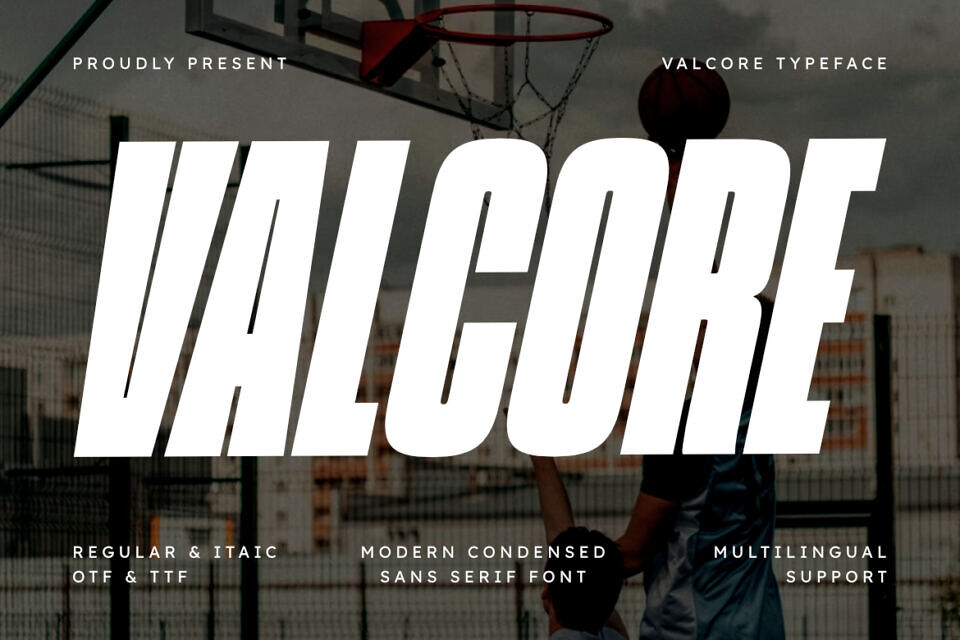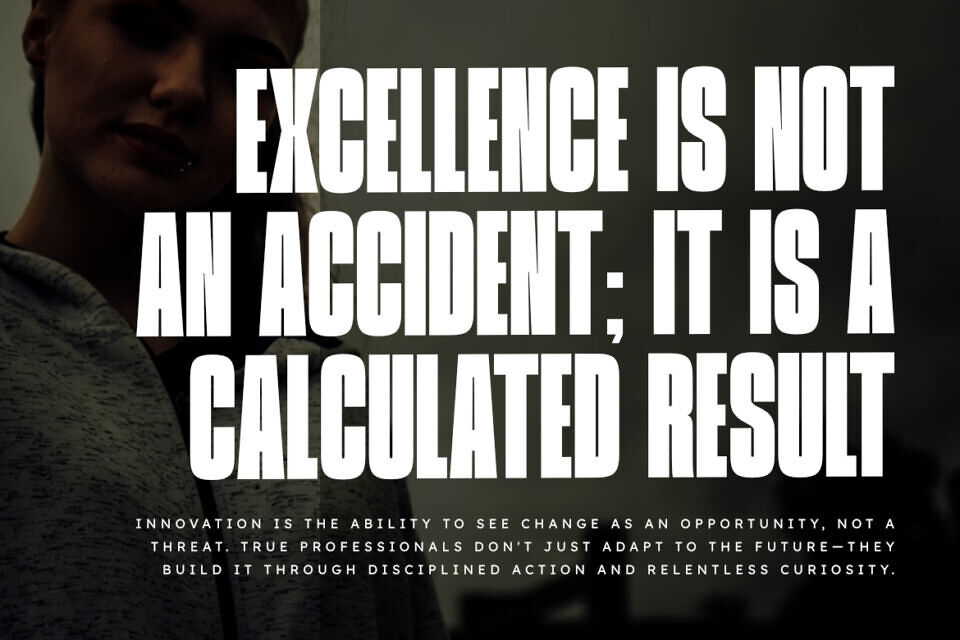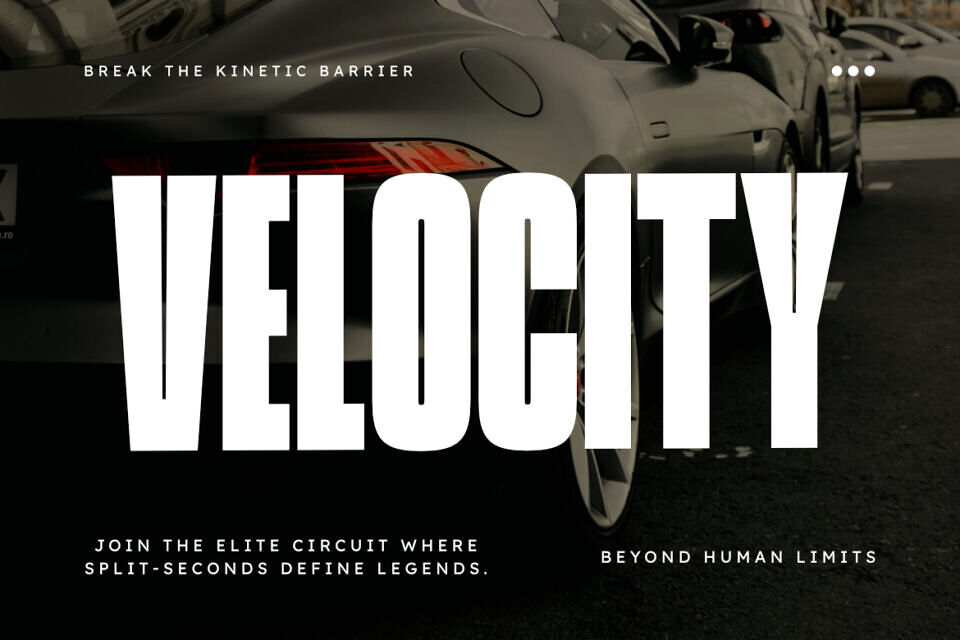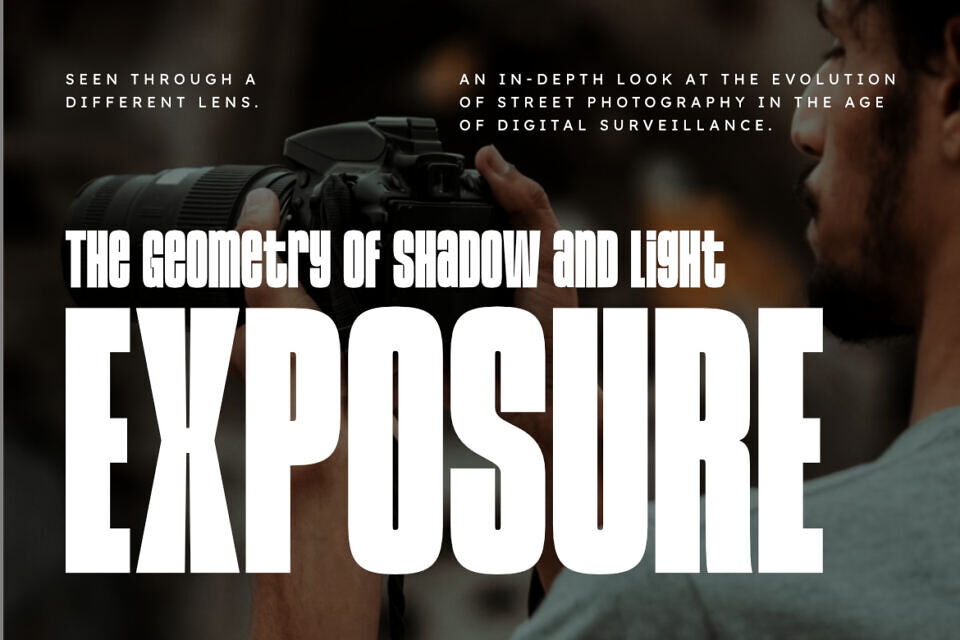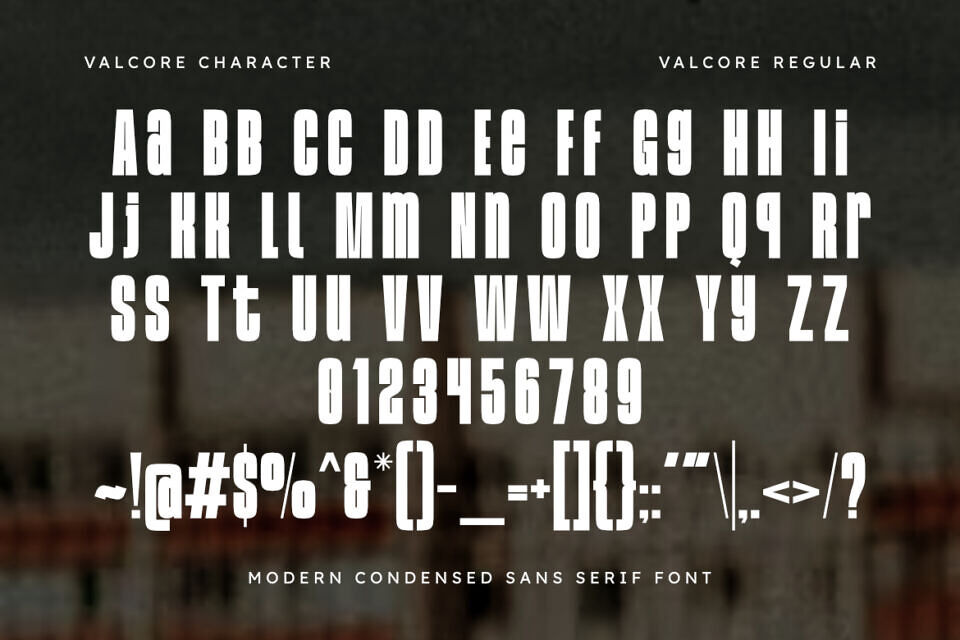
Valcore Font
Valcore is a sophisticated and powerful modern condensed sans serif font, thoughtfully designed to capture the essence of strength and high-impact storytelling. With its tall, bold structure and clean geometric lines, Valcore offers a professional aesthetic that brings a touch of confident grace to any creative project.
Whether you are crafting high-energy sports branding, a modern automotive logo, or impactful editorial layouts, Valcore provides a seamless blend of contemporary flair and timeless strength.